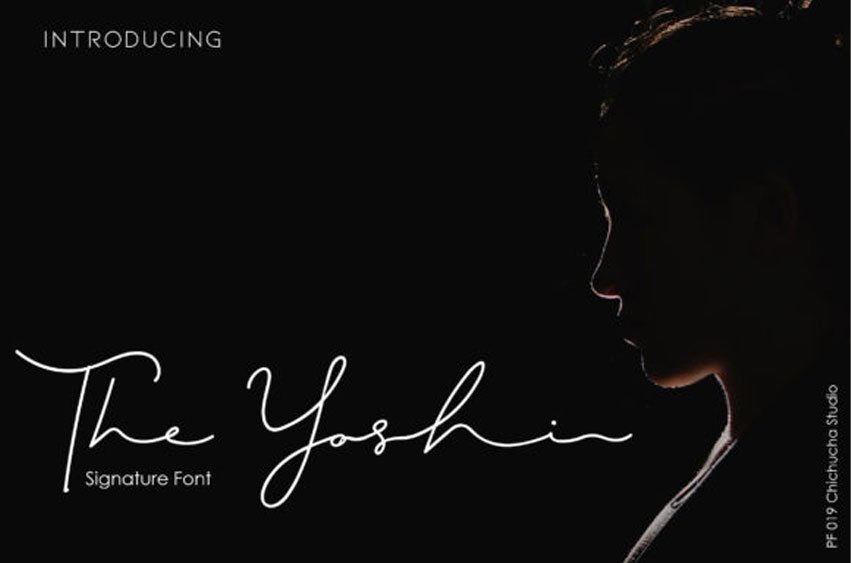
The Yoshi Font
The Yoshi Font is a beautiful signature font that will make any design project look elegant, classy and modern.
It is suitable for flyers, posters, novels, letterheads, or any design requirements you want to be awesome.